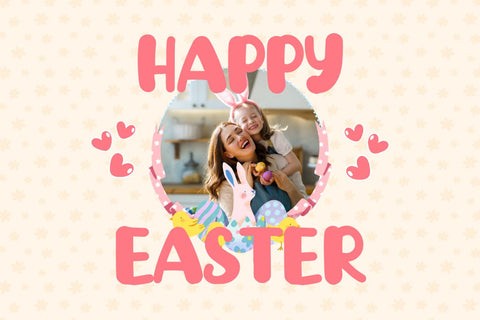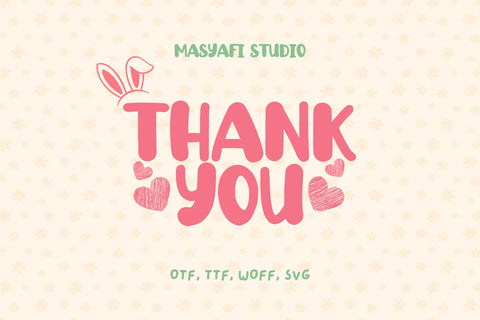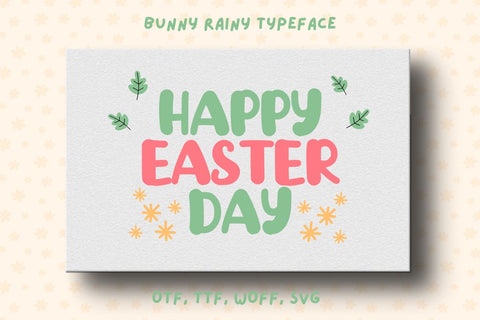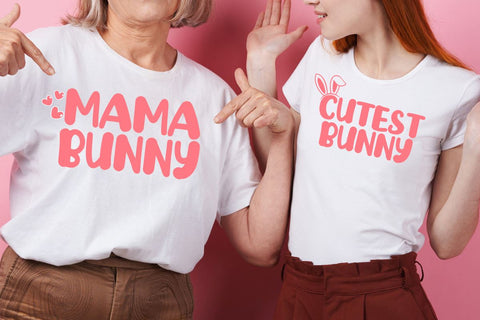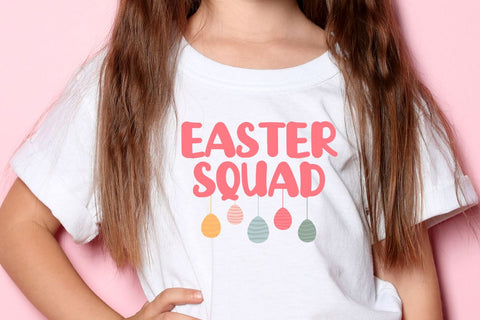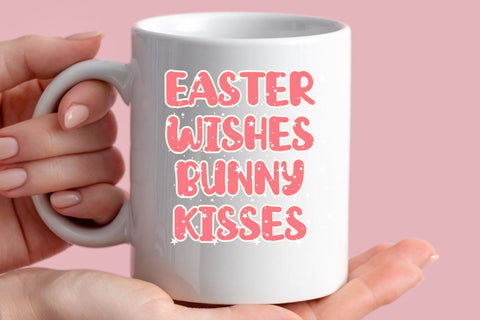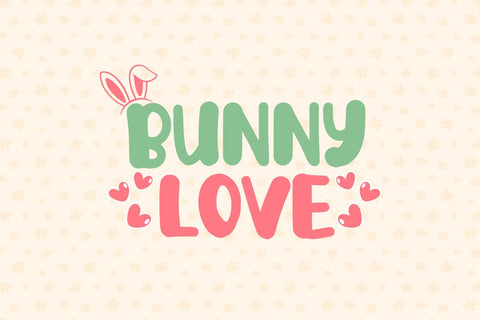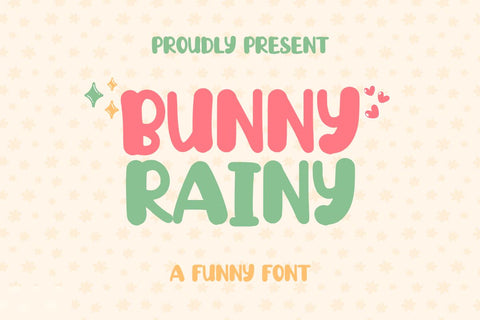
Bunny Rainy - Funny Display Font
Hi, Introducing Bunny Rainy - Funny Display Font
A fun Display font with a hand-drawn style. This font is very cool for t-shirts, greeting cards, printing, craft, DIY, children's t-shirts, book covers, magazines, branding, craft businesses, Cricut, and many other ideas